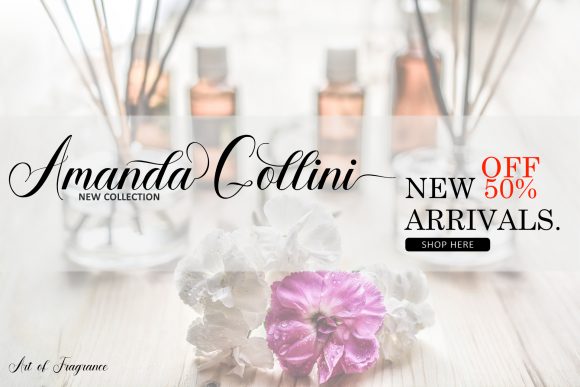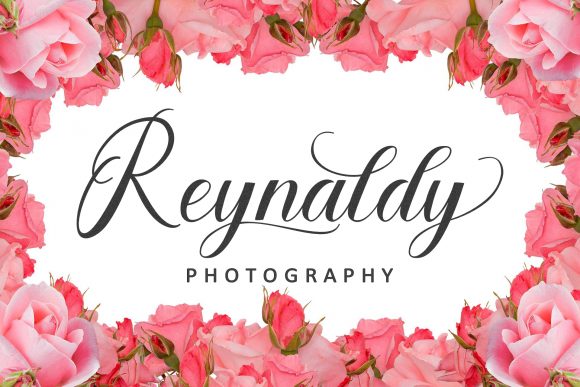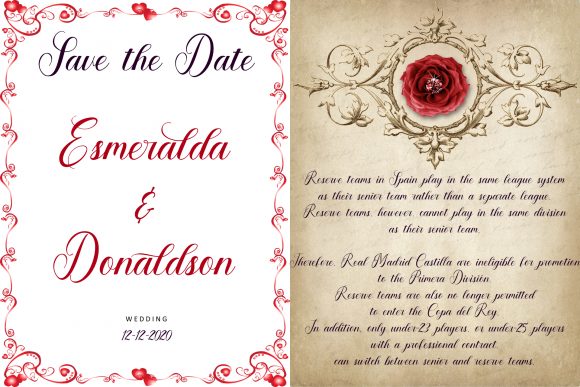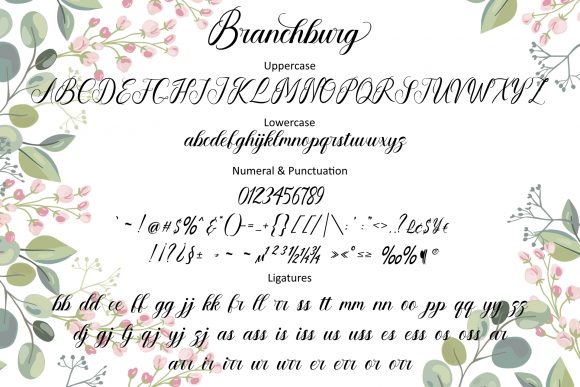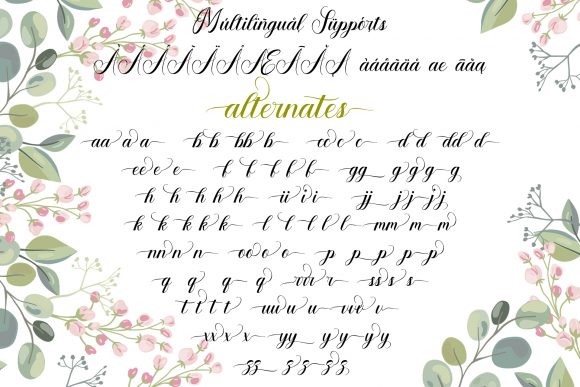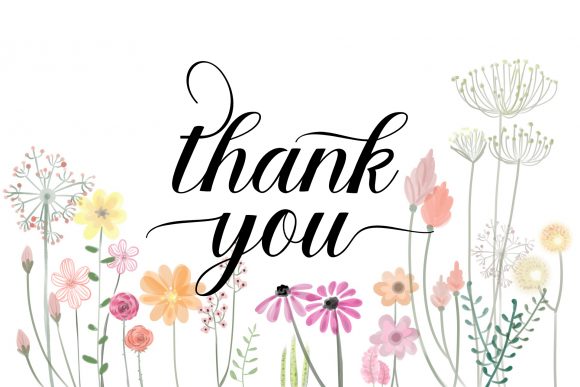
Introduction to Branchburg Font
Branchburg is a beautiful light handwritten font with a unique feel and a stunning impact.
Why Choose Branchburg Font?
Branchburg Font offers exceptional quality and versatility, making it a valuable addition to your design toolkit. Whether you’re creating for personal projects or commercial use, Branchburg Font delivers professional results.